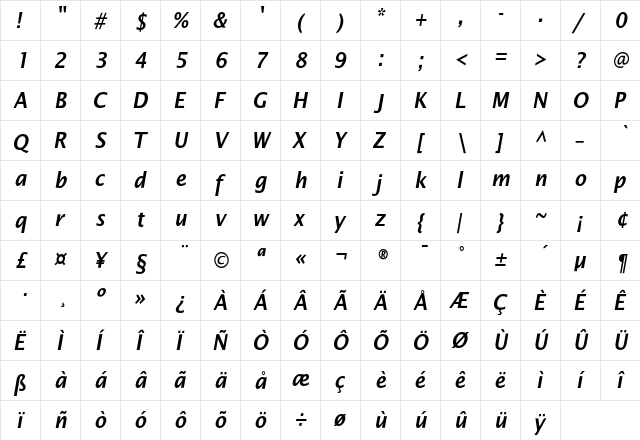
LucidaSansNarEF DemBolIta
Design Context for LucidaSansNarEF Typeface
LucidaSansNarEF is a composed and adaptable typeface that performs quietly and consistently across a wide range of design contexts.